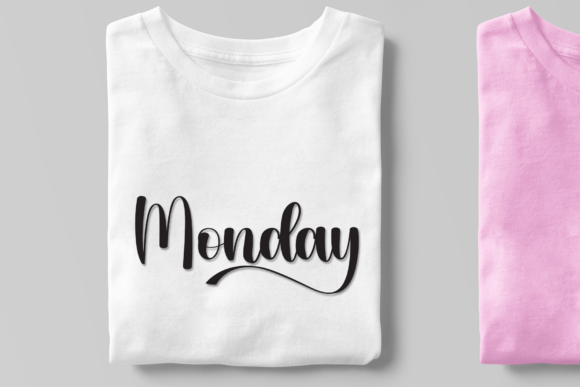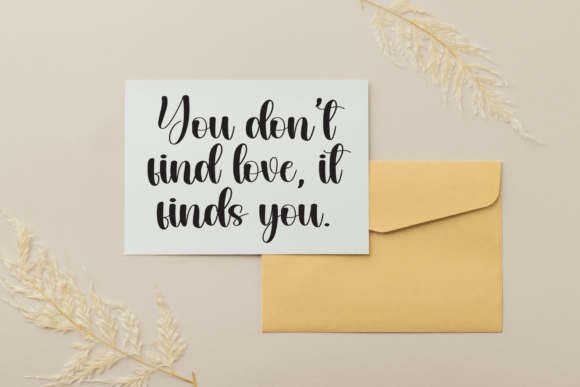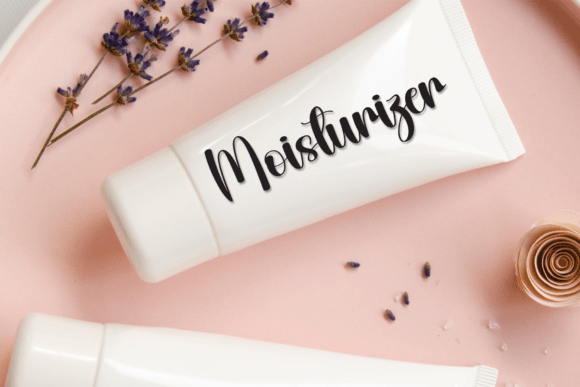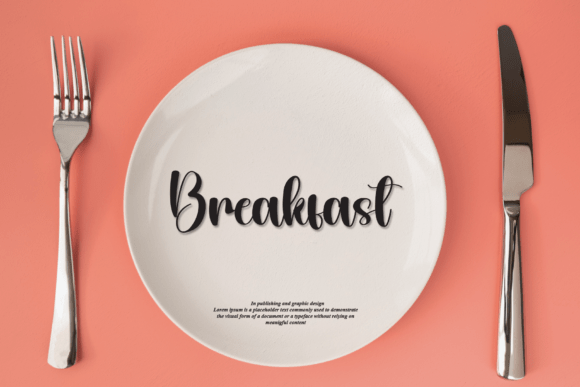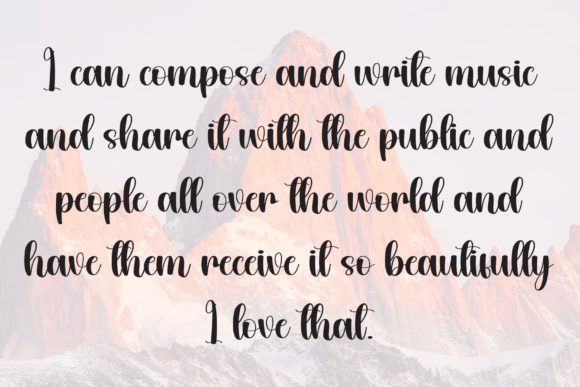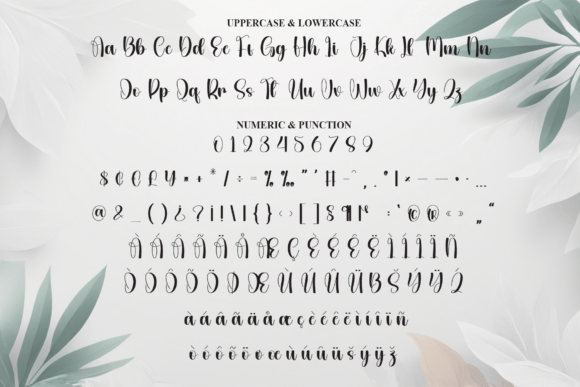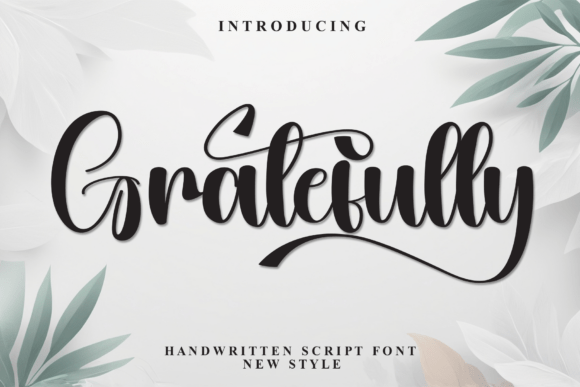
Gratefully Font: Add a Touch of Whimsy to Your Designs
Are you looking for a font that can add a dash of warmth and personality to your designs? Look no further than Gratefully Font, a delightful handwritten font that exudes a sweet and amiable vibe. With its unique and playful style, this font is perfect for designers and crafters who want to create joyful and engaging designs that tell a story.
The Charm of Gratefully Font
Gratefully Font is a handwritten font that is designed to bring a touch of whimsy and charm to your designs. Its cute and entertaining style breathes life into every character, making it a quintessential tool for storytelling with a fun twist. Whether you’re creating wedding invitations, greeting cards, or any other design that needs a personal touch, this font is sure to impress.
Wedding invitations and greeting cards are special occasions that deserve a font that is both elegant and playful. Gratefully Font is the perfect choice for these types of designs, as it adds a touch of warmth and sincerity to your message. Its handwritten style gives your designs a personal and intimate feel, making them truly special and memorable.
Why Choose Gratefully Font?
So why choose Gratefully Font over other fonts? Here are just a few reasons:
- Unique and Playful Style: Gratefully Font has a unique and playful style that sets it apart from other fonts. Its handwritten style gives your designs a personal and intimate feel that is sure to engage your audience.
- Easy to Read: Despite its playful style, Gratefully Font is easy to read and understand. This makes it perfect for designs that need to convey a message, such as wedding invitations and greeting cards.
- Versatile: Gratefully Font is a versatile font that can be used for a wide range of designs, from wedding invitations and greeting cards to posters and social media graphics.
- Handwritten Sincerity: Gratefully Font imbues your designs with the charm of handwritten sincerity. Its playful style gives your designs a personal touch that is sure to resonate with your audience.
How to Use Gratefully Font
- Pair it with Other Fonts: Gratefully Font pairs well with other fonts, such as serif and sans-serif fonts. Experiment with different font combinations to create a unique and engaging design.
- Use it for Headings and Titles: Gratefully Font is perfect for headings and titles, as its playful style adds a touch of whimsy and charm to your design.
In conclusion, Gratefully Font is a delightful handwritten font that is perfect for designers and crafters who want to add a touch of whimsy and charm to their designs. Its unique and playful style makes it perfect for wedding invitations, greeting cards, and any other design that needs a personal touch. With its ease of use and versatility, Gratefully Font is a must-have font for any designer or crafter looking to elevate their designs.